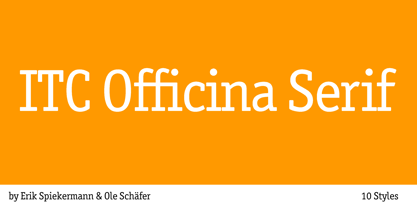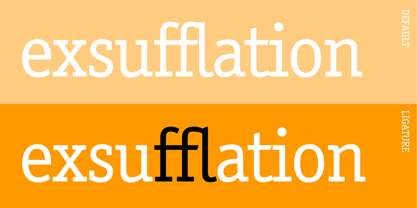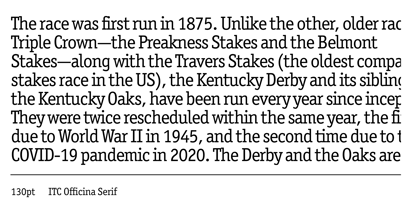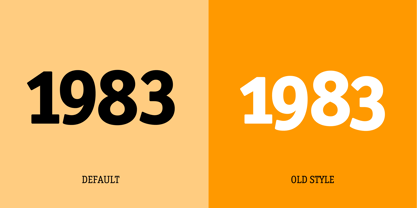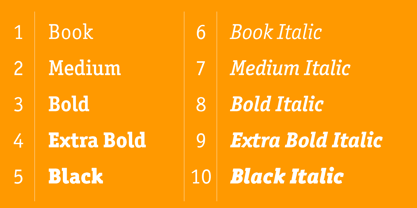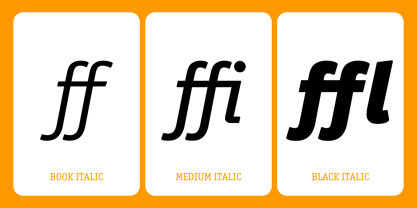
ITC Officina Serif
ITC Officina® Serif
by ITC
ITC Officina Serif Font Family was designed by Ole Schäfer, Erik Spiekermann and published by ITC. ITC Officina Serif contains 10 styles family package options.
When ITC Officina was first released in 1990, as a paired family of serif and sans serif faces in two weights with italics, it was intended as a workhorse typeface for business correspondence. But the typeface proved popular in many more areas than correspondence. Erik Spiekermann, ITC Officina's designer: Once ITC Officina got picked up by the trendsetters to denote 'coolness,' it had lost its innocence. No pretending anymore that it only needed two weights for office correspondence. As a face used in magazines and advertising, it needed proper headline weights and one more weight in between the original Book and Bold." To add the new weights and small caps, Spiekermann collaborated with Ole Schaefer, director of typography and type design at MetaDesign. The extended ITC Officina family now includes Medium, Extra Bold, and Black weights with matching italics-all in both Sans and Serif -- as well as new small caps fonts for the original Book and Bold weights."